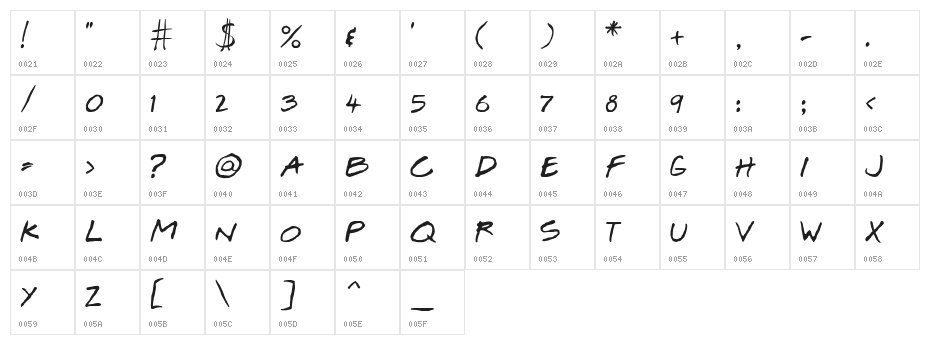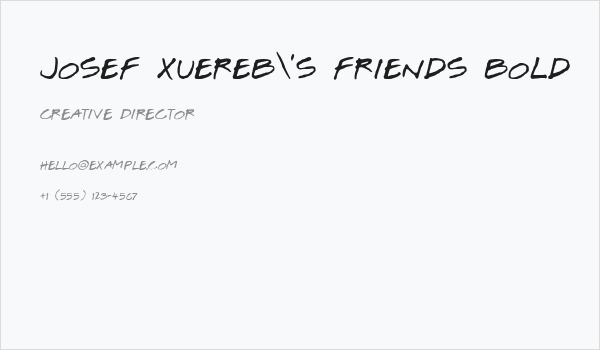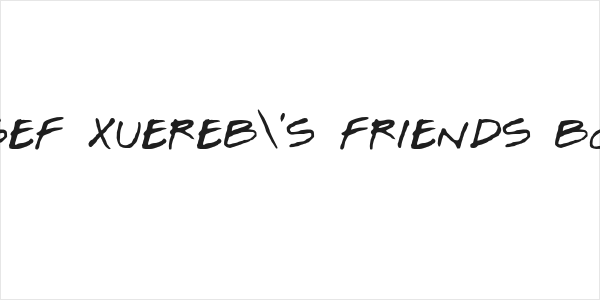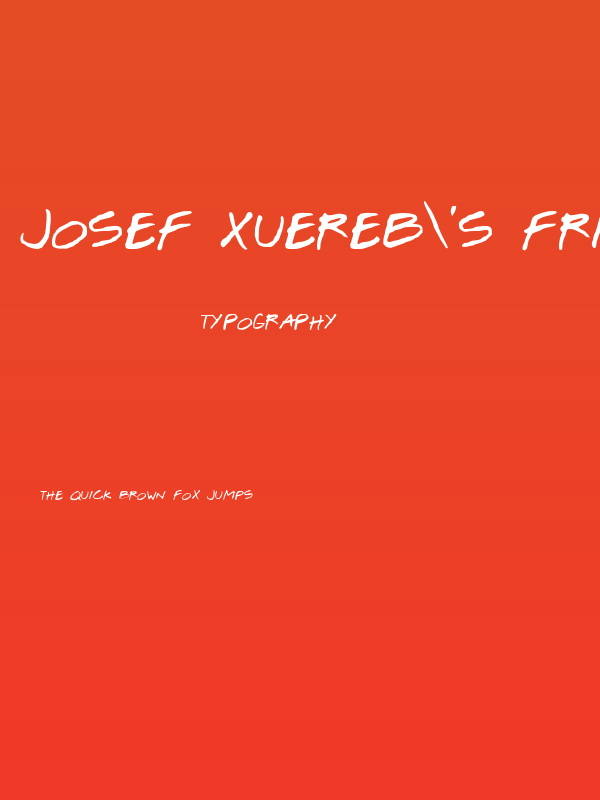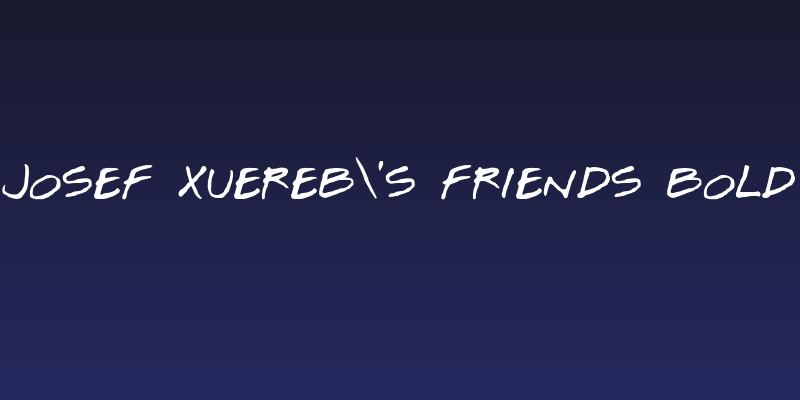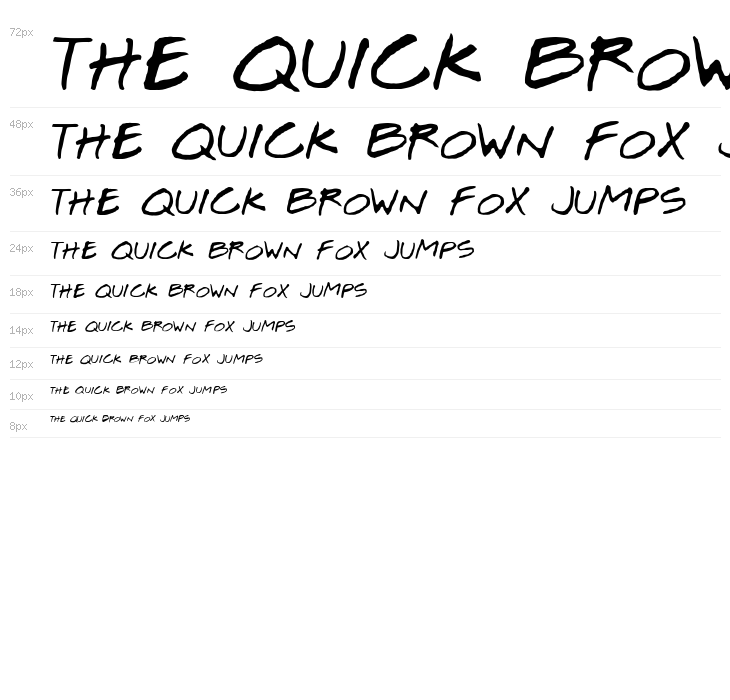
Josef Xuereb's Friends Bold Font
Josef Xuereb's Friends Bold Description
This font exhibits a bold, handwritten style with a dynamic and energetic appearance. The letters are crafted with a natural flow, mimicking the strokes of a marker or brush pen. Each character maintains a consistent boldness, giving the font a strong presence. The uppercase and lowercase letters are distinct yet cohesive, with a slight slant that adds to the casual, informal feel. The numbers and special characters follow the same stylistic approach, ensuring uniformity across all glyphs. This font is ideal for projects that require a personal touch or a creative flair.
| Overall Style | Casual, Creative |
| Proposed Projects | Ideal for greeting cards, posters, logos, and social media graphics. |